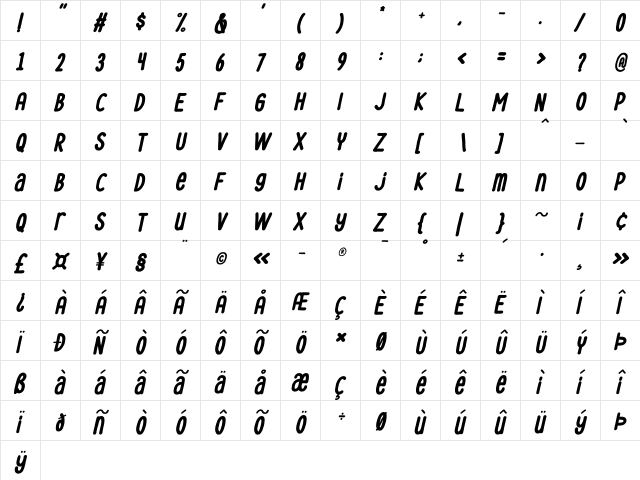
Le Havre City Bold Oblique Havre-City-Bold-Oblique Font Preview
Design Context for Le Havre City Bold Oblique Typeface
Le Havre City Bold Oblique takes a measured approach to typography — its balanced proportions and neutral character make it a reliable workhorse for both digital and print work. The slanted form adds forward momentum and visual energy. The heavy weight commands attention and anchors typographic hierarchies.
Pro Tip: Try Le Havre City Bold Oblique for annotation and caption copy alongside an upright companion — the contrast in angle creates a dynamic but ordered typographic system.